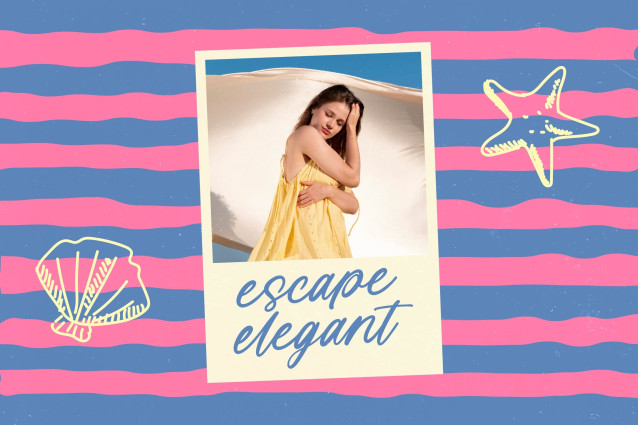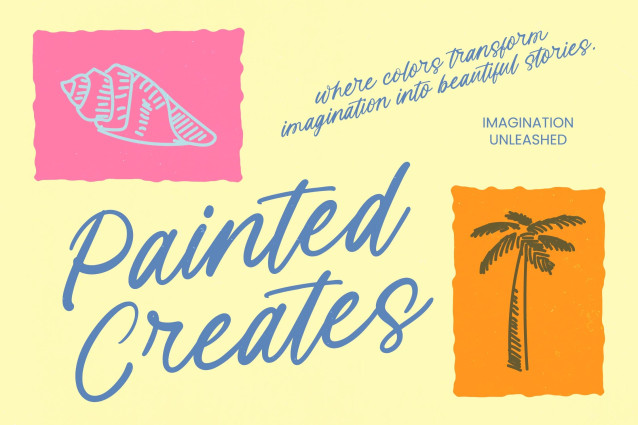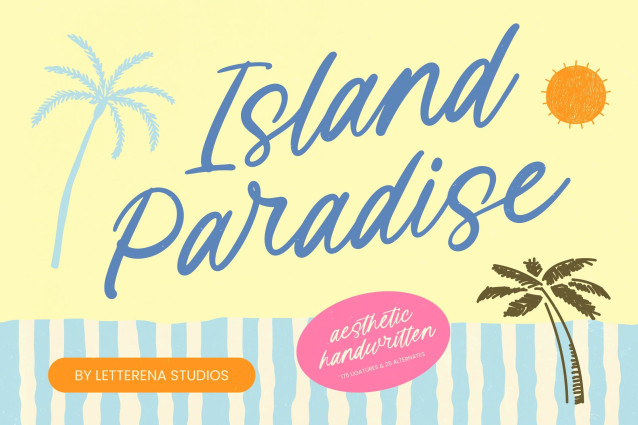
The Island Paradise – Aesthetic Handwritten Font captures a unique casual luxury, blending a fluid monolinear script with an authentic handwritten charm. This typeface is designed to bring a sense of warmth and human connection to any layout, offering a visual aesthetic that is both approachable and sophisticated for modern audiences.
Experience unmatched creative freedom through a rich library of premium OpenType features that enhance every character. Featuring 175 custom ligatures and 25 stylistic alternates, Island Paradise – Aesthetic Handwritten allows designers to achieve a natural rhythm and bespoke typography look. These carefully crafted variations ensure that your text never appears repetitive, maintaining a high-end, custom-lettered feel that is essential for premium visual identities.